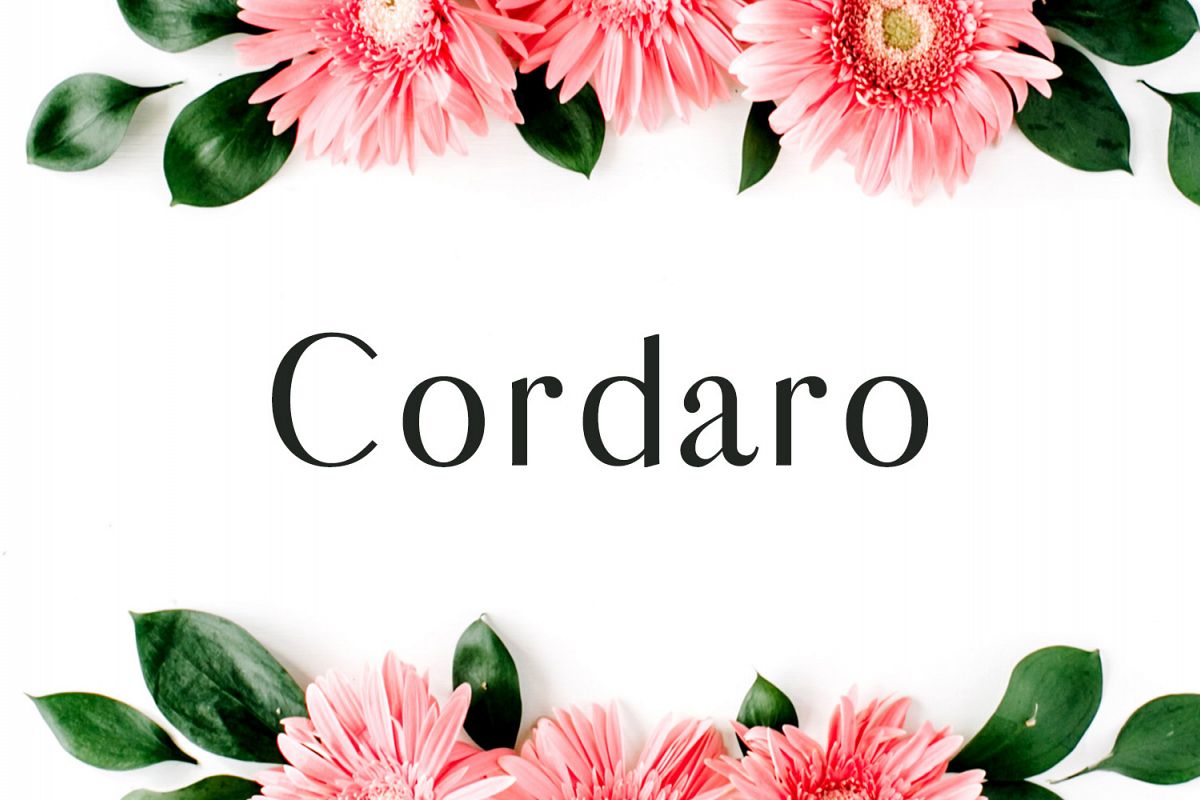
Cordaro Sans Serif Typeface
Cordaro-Regular
Cordaro-Bold
Cordaro Sans Serif Typeface is a minimal clean sans serif font family, which contains 2 weights and It features unique and modern sans serif look and feel. Perfect for gorgeous logos, titles, web layouts and branding. It looks gorgeous in all caps with a wide-set spacing if you want to try a classy look, or beautiful on its own in capital and lowercase letters for something completely timeless.
Cordaro Font Features:
• Uppercase Multilingual Letters
• Lowercase Multilingual Letters
• Non English Characters ( Latin Supplement + Latin Extended A )